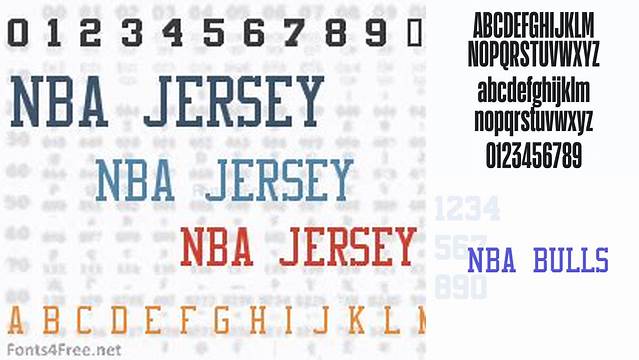
NBA Font: Free Download Guide For 1001 Fonts
Alright, guys, ever been on the hunt for that perfect NBA font to spice up your designs? Whether you're creating a basketball-themed birthday card, designing a website for your local team, or just want to add a sporty touch to your projects, the right font can make all the difference. Finding these fonts for free and ensuring they're legit can be a bit of a maze. So, let’s break down everything you need to know about NBA fonts and where to snag them safely.
Understanding NBA Fonts
Before diving into the free download scene, let's get clear on what we mean by "NBA font." Officially, the NBA doesn't release its exact font for public use due to copyright reasons. What we're usually looking for are fonts that mimic the style of NBA team logos and jerseys. These fonts often feature a bold, athletic look with sharp edges or unique curves that capture the essence of the game. Knowing this helps you narrow your search and identify the best look-alikes for your projects.
While Google Fonts may not directly offer an "NBA font free download 1001", it provides a range of open-source fonts that can be suitable alternatives. Look for fonts with a strong, blocky appearance, similar to those used in sports branding. Fonts like "Bebas Neue," "Oswald," and "Roboto Condensed" can work well. The advantage of Google Fonts is that they are free for both personal and commercial use, and they are easy to embed on websites.
Identifying the Right NBA-Style Font
5. Key Characteristics of NBA Fonts
So, what exactly should you look for when trying to identify the right NBA-style font? Typically, these fonts are bold, sans-serif types with a strong, impactful presence. They often feature uniform strokes and a slightly condensed form, making them ideal for jerseys, logos, and headlines. Consider the specific aesthetic of the team or era you're trying to emulate. For instance, a retro font might suit a throwback design, while a more modern font might be better for a contemporary project.
6. Matching Fonts to Specific NBA Teams
Each NBA team has its unique font style, which can be a fun challenge to replicate. The Lakers often use a sleek, elegant font, while the Celtics might opt for a bolder, more traditional style. Researching the specific fonts used by different teams can guide your search. Look for fonts that share similar characteristics in terms of weight, spacing, and overall design.
7. Using Font Identifiers
If you come across an image with a font you like but can't identify, use online font identifiers. Websites like WhatTheFont! and Font Matcherator allow you to upload an image, and they'll suggest fonts that closely match the one in the picture. This can be a huge time-saver when you're trying to pinpoint a specific style.
Font Licensing and Usage
8. Understanding Font Licenses
Font licensing is crucial. Most free fonts come with specific terms of use. Some are free for personal use only, while others allow commercial use. Read the license agreement carefully to avoid copyright infringement. If you're planning to use the font in a commercial project, make sure you have the necessary permissions.
9. Personal vs. Commercial Use
Knowing the difference between personal and commercial use is essential. Personal use typically means using the font for projects that aren't intended to generate income, such as birthday cards or personal websites. Commercial use involves using the font in projects that are meant to make money, such as logos, merchandise, or advertisements. Always double-check the license to ensure you're covered.
10. Purchasing Commercial Licenses
If you find a font that's perfect for your commercial project but only offers a personal-use license, consider purchasing a commercial license. This ensures you have the legal right to use the font in your work. Many font foundries offer affordable commercial licenses, providing peace of mind and protecting you from potential legal issues.
Installing and Managing Fonts
11. Installing Fonts on Windows
Installing fonts on Windows is straightforward. After you download the font file, usually in .ttf or .otf format, right-click the file and select "Install." Windows will automatically install the font, making it available in your applications. Alternatively, you can copy the font files to the Fonts folder in your Windows directory.
12. Installing Fonts on macOS
On macOS, installing fonts is just as easy. Double-click the font file, and Font Book will open. Click "Install Font" at the bottom of the window, and the font will be installed. You can also drag and drop font files into the Font Book application.
13. Managing Fonts
Managing your fonts can help keep your system organized and prevent conflicts. Font management software allows you to activate and deactivate fonts as needed, making it easier to find the right font for your projects. Popular font management tools include FontExplorer X and NexusFont.
Creating Your Own NBA-Inspired Font
14. Introduction to Font Design Software
If you're feeling ambitious, you might consider creating your own NBA-inspired font. Font design software like FontLab Studio, Glyphs, and BirdFont allows you to design and customize fonts from scratch. These tools offer a wide range of features for creating professional-quality fonts.
15. Designing Basic Characters
Start by designing the basic characters of your font, such as A, B, C, 1, 2, and 3. Focus on creating a consistent style and ensuring that the characters work well together. Pay attention to details like stroke weight, spacing, and overall form.
16. Refining and Exporting Your Font
After designing the basic characters, refine your font by adjusting the spacing, kerning, and other details. Export your font in .ttf or .otf format, and test it in various applications to ensure it looks good. Share your creation with the world and get feedback from other designers.
Best Practices for Using NBA Fonts
17. Font Pairing Tips
Pairing your NBA font with a complementary font can enhance your design. Consider using a simple sans-serif font for body text to create a balance with the bold, athletic style of the NBA font. Experiment with different combinations to find what works best for your project.
18. Maintaining Readability
While NBA fonts are great for headlines and logos, they may not be ideal for long paragraphs of text. Ensure your text is readable by using an appropriate font size and spacing. Avoid using overly decorative fonts for body text, as they can strain the reader's eyes.
19. Using Fonts in Logos and Branding
NBA fonts can be highly effective in logos and branding materials. Use them to create a strong, memorable visual identity for your team or sports-related business. Experiment with different colors, sizes, and arrangements to achieve the desired effect.
Alternative Font Styles
20. Exploring Varsity Fonts
Varsity fonts are a classic choice for sports-related designs. These fonts typically feature a stencil or block style, reminiscent of traditional sports jerseys. They're great for creating a vintage or retro look.
21. Considering Athletic Fonts
Athletic fonts encompass a wide range of styles, from bold and modern to classic and traditional. Look for fonts that convey a sense of energy and dynamism. These fonts are well-suited for sports teams, events, and promotions.
22. Trying Stencil Fonts
Stencil fonts offer a unique, industrial look that can add character to your designs. These fonts feature gaps or breaks in the letters, creating a distinctive visual effect. They're often used in military, sports, and industrial contexts.
Resources and Inspiration
23. Online Font Communities
Join online font communities to connect with other designers, share your work, and get feedback. These communities are a great resource for finding inspiration and discovering new fonts.
24. Design Blogs and Websites
Follow design blogs and websites to stay up-to-date on the latest trends and techniques. These resources often feature articles, tutorials, and showcases of inspiring design work.
25. Social Media for Font Inspiration
Use social media platforms like Pinterest, Instagram, and Dribbble to find font inspiration. Follow designers and font foundries to see how they're using fonts in their work.
26. Resolving Font Compatibility Issues
Font compatibility issues can arise when using fonts on different operating systems or in different applications. Ensure your fonts are compatible with your intended platforms and applications.
27. Fixing Corrupted Font Files
Corrupted font files can cause problems such as missing characters or display errors. Download a fresh copy of the font file or use a font repair tool to fix the issue.
28. Addressing Font Display Problems
Font display problems can occur due to various factors, such as font cache issues or incorrect settings. Clear your font cache and adjust your display settings to resolve the issue.
Staying Updated on Font Trends
29. Following Font Design Trends
Stay informed about the latest font design trends to keep your work fresh and relevant. Follow design blogs, attend conferences, and network with other designers to stay ahead of the curve.
30. Learning New Font Techniques
Continuously learn new font techniques to expand your skills and improve your design capabilities. Explore online courses, tutorials, and workshops to deepen your knowledge.